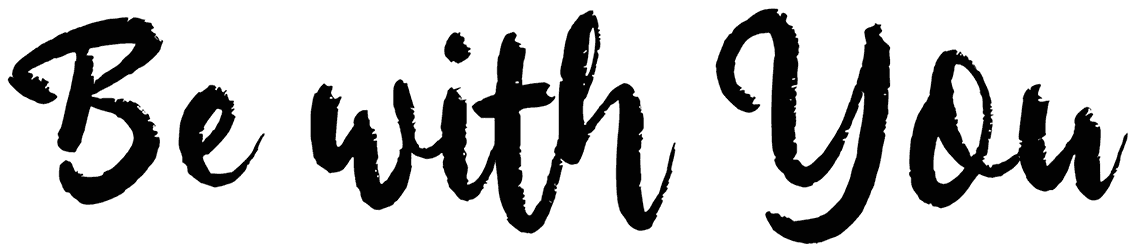
b Be with You Font
The significant thing that matters about portraying the graphic project is picking the pleasant face that fits all tastes, and here, b Be with You, through its arty-crafty outward appearance, can do that.
This brush font has keen hand lettering, while being an A-Z font will give you more flexibility to create various designs. Let’s apply this natural artwork to posters, greeting cards, covers, social media posts, and much more. Try it out and take delight!